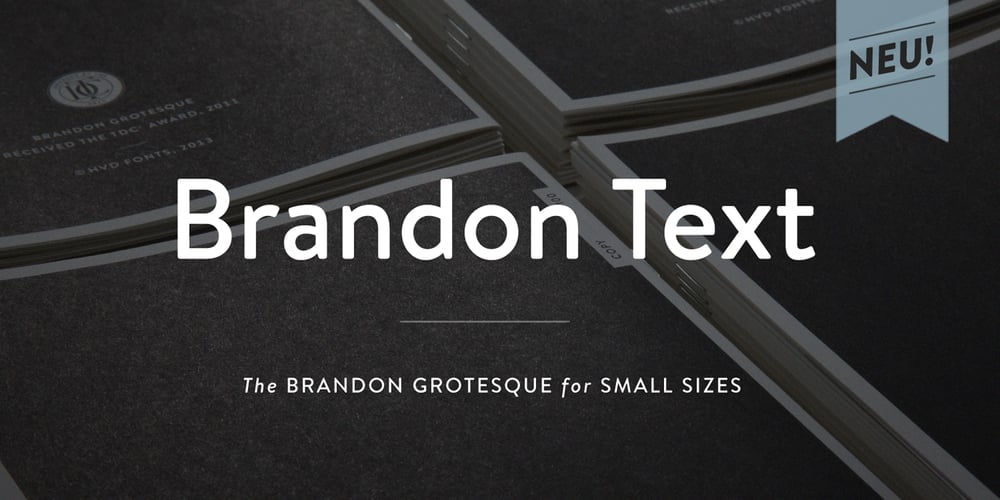
Brandon Text Font Family was designed by Hannes von Döhren and published by HVD Fonts. Brandon Text contains 12 styles and family package options. Brandon Text is the companion of the famous Brandon Grotesque type family. It has a higher x-height than the Grotesque version and is optimized for long texts, small sizes and screens. This sans serif type family of six weights plus matching italics was designed by Hannes von Döhren in 2012. Influenced by the geometric-style sans serif faces that were popular during the 1920s and 30s, the fonts are based on geometric forms that have been optically corrected for better legibility. Brandon Text has a functional look with a warm touch and works perfectly together with Brandon Grotesque. It is manually hinted and optimized for screens, so it will be a good choice for Websites, eBooks or Apps. The whole Brandon series is equipped for complex, professional typography with different sets of numbers, alternate letters, fractions and an extended character set to support Central and Eastern European as well as Western European Languages.